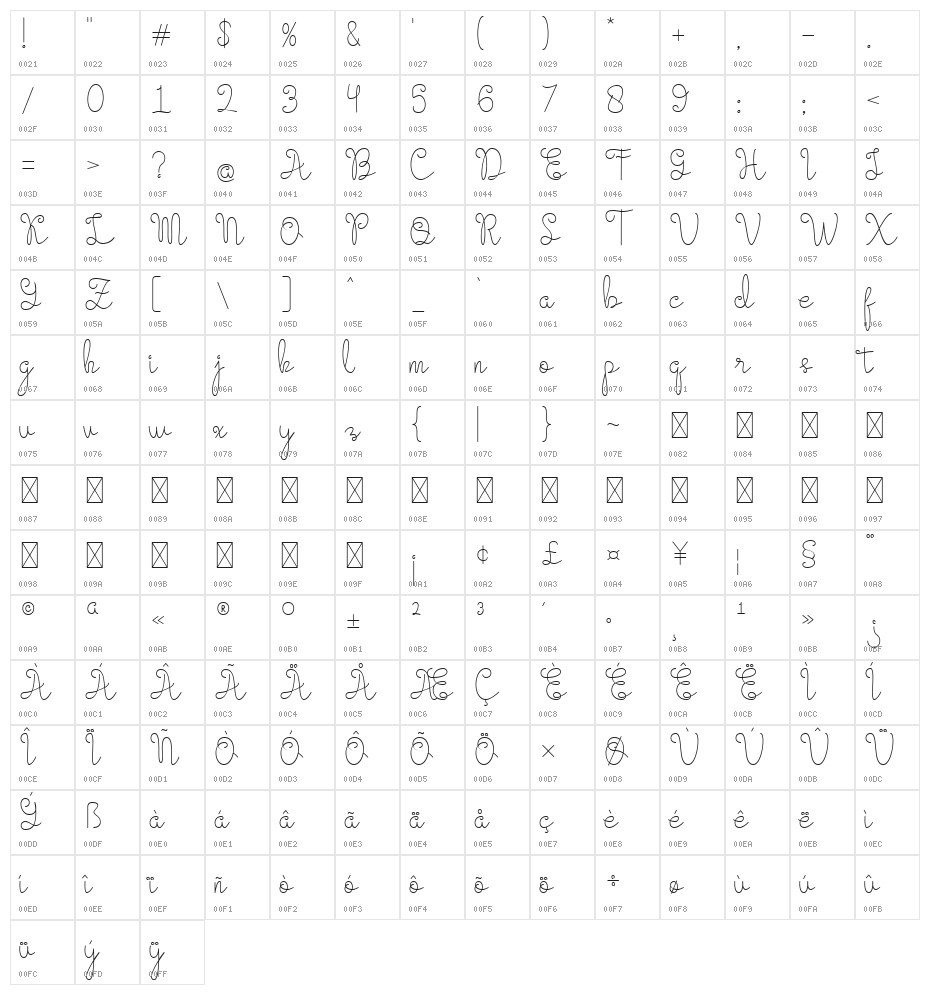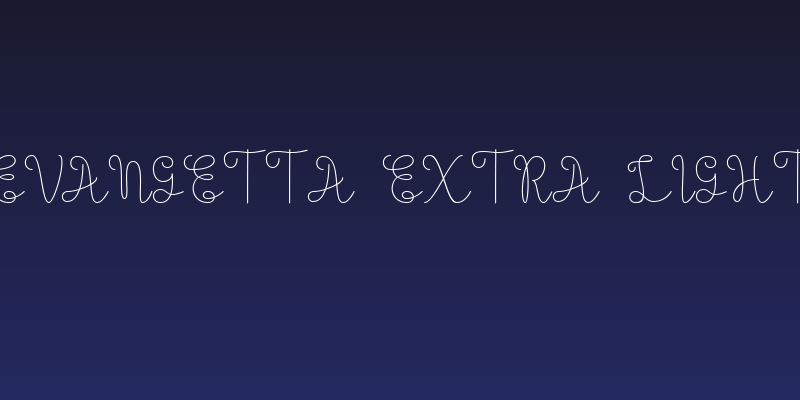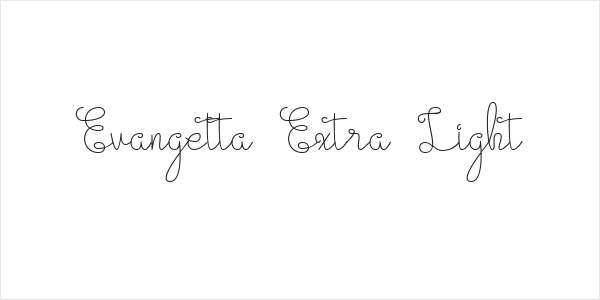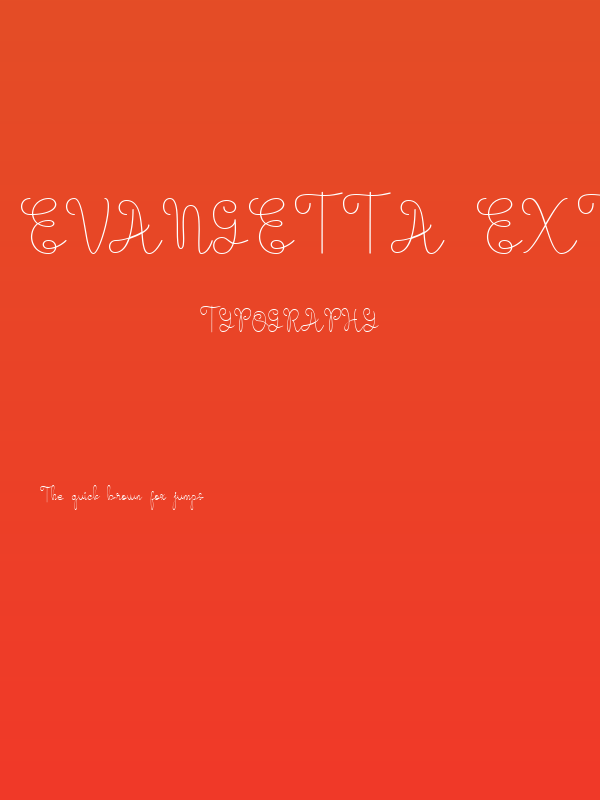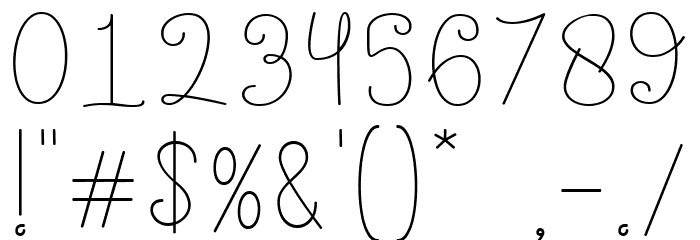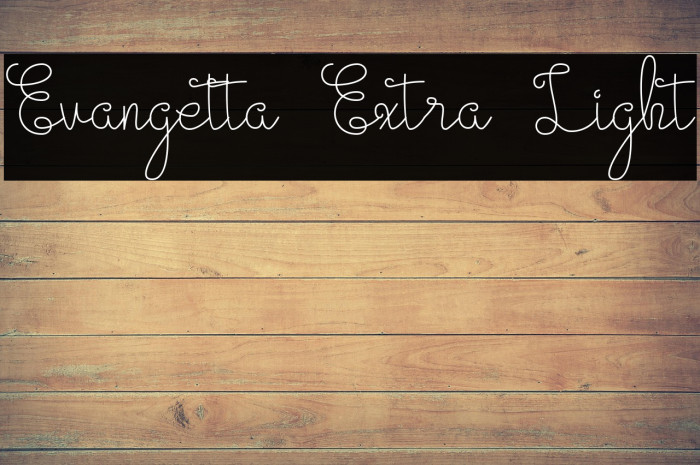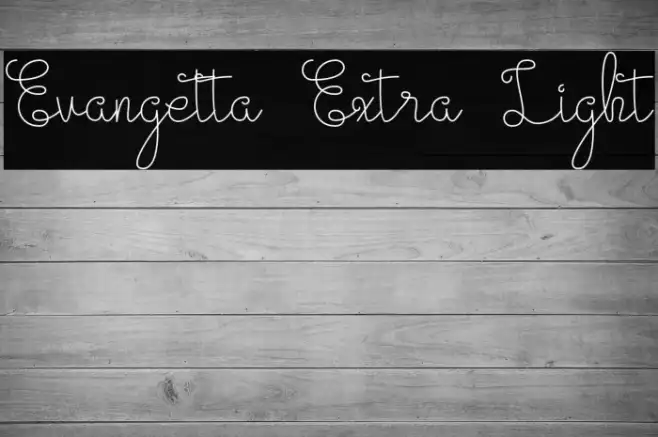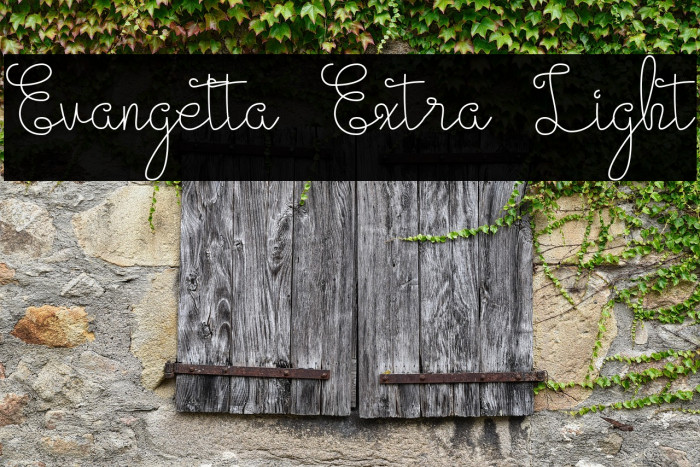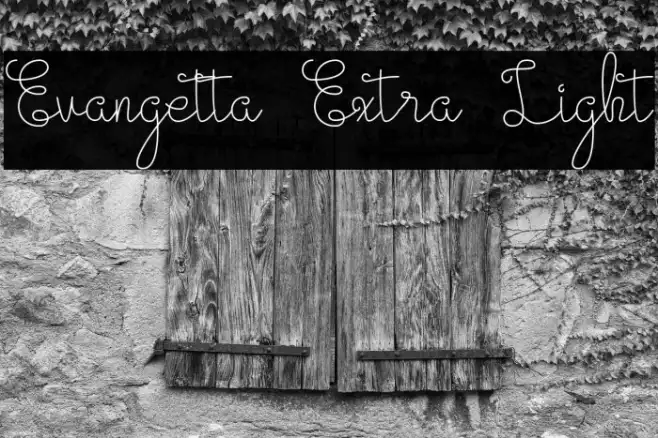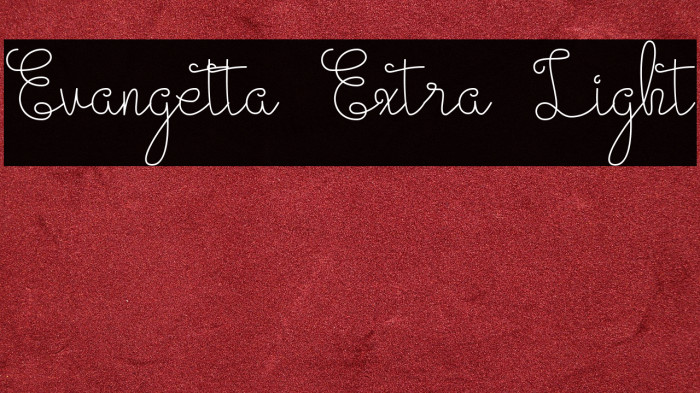
Evangetta Extra Light Font
Evangetta Extra Light Description
This font features a delicate and elegant script style with a flowing, cursive design. The characters are interconnected with smooth, continuous strokes, giving it a graceful and sophisticated appearance. The uppercase letters are slightly more ornate, with loops and swirls that add a touch of flair, while the lowercase letters maintain a consistent, fluid form. The numerals and special characters are designed to match the overall aesthetic, ensuring a cohesive look across all text. This font is perfect for projects that require a touch of elegance and refinement, such as wedding invitations, formal event programs, or high-end branding materials.